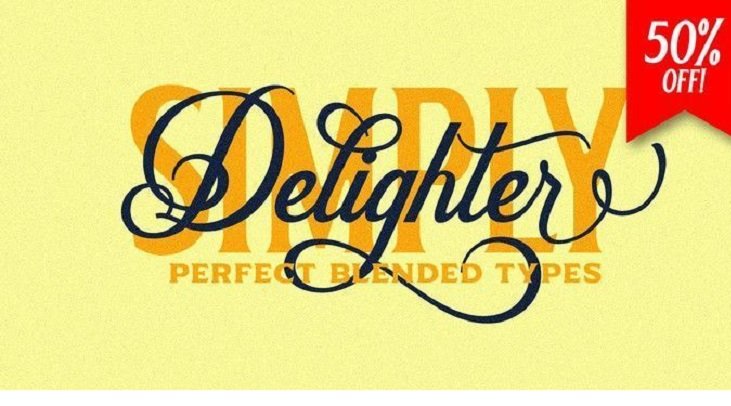
Delighter Calligraphy Font
Delighter Script is simply perfect blended fonts with 3 style. Including 10 font and extras. Delighter is inspired from many lettering, poster, quotes, logos and brands.
It’s perfect for advertising, magazines, editorial, poster, branding, logo type, header, titles, packaging, display etc.
A good combination for helping your design, just mix and match and you’ll be very authentic.
Beauty Pair font SCRIPT AND SERIF